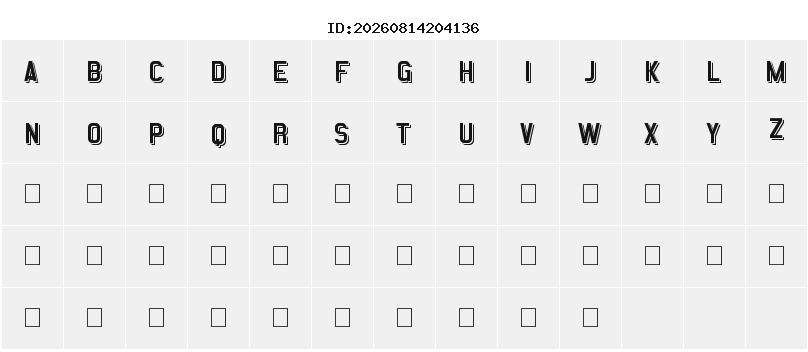
About Statement Shadow.ttf
Statement Shadow.ttf is a modern, elegant sans-serif font designed for ultimate readability and visual harmony. Perfect for branding, headlines, web design, and print materials.